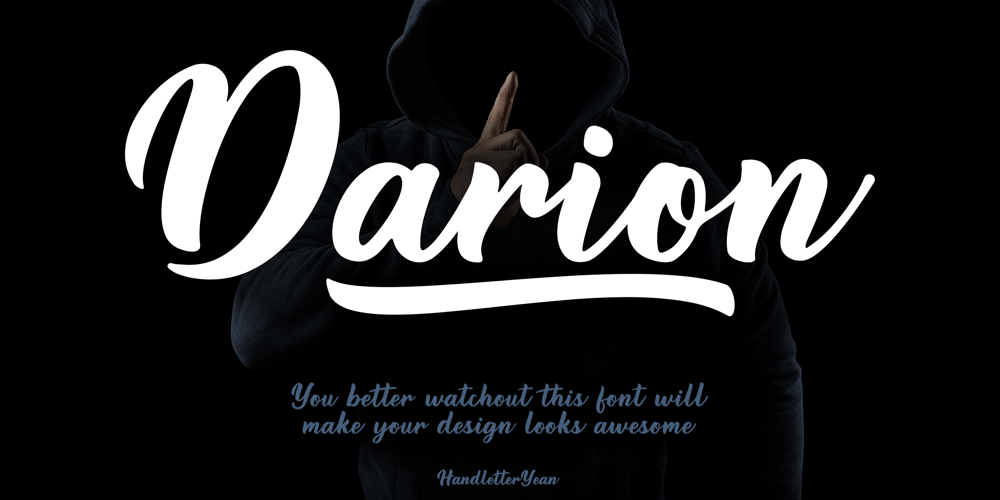
Darion Font Family was designed by Yean Aguste and published by HandletterYean. Darion contains 4 styles and family package options. Darion is a modern bold script font with natural handwriting touch. This font ready to make all your designs looks awesome. Its clean and strong looks are suitable for projects such as crafts, quotation, decoration text, prints, advertising, packaging, logos, business cards, invitations, labels, products, T-shirt designs, social media posts and much more. Get this font now, have fun!To access the alternate glyphs, you need a program that supports OpenType features such as Adobe Illustrator CS, Adobe Photoshop CC, Adobe Indesign, and CorelDraw. More information about how to access alternate glyphs, check out this link: http://goo.gl/ZT7PqK